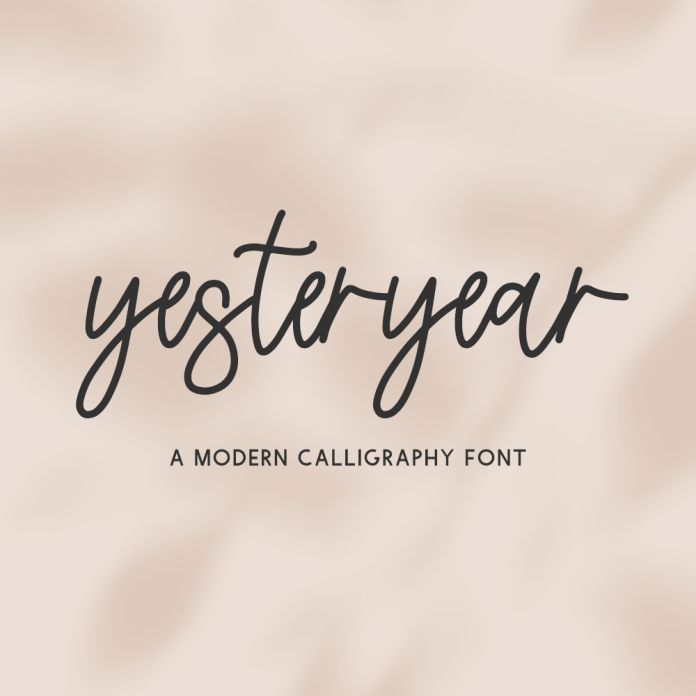
Introducing Yesteryear Script, a handwritten monoline script.
Yesteryear Script is best for:
- 26 alternates
- 11 ligatures - bb, dd, ff, ll, mm, nn, oo, pp, rr, ss, tt